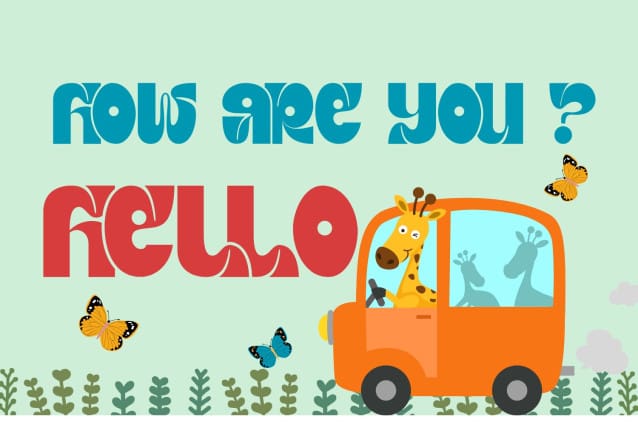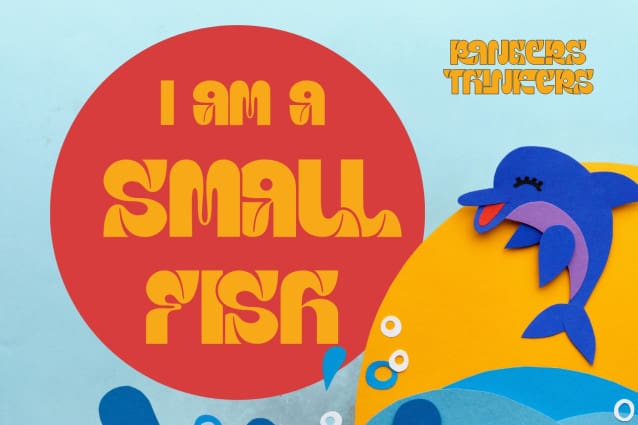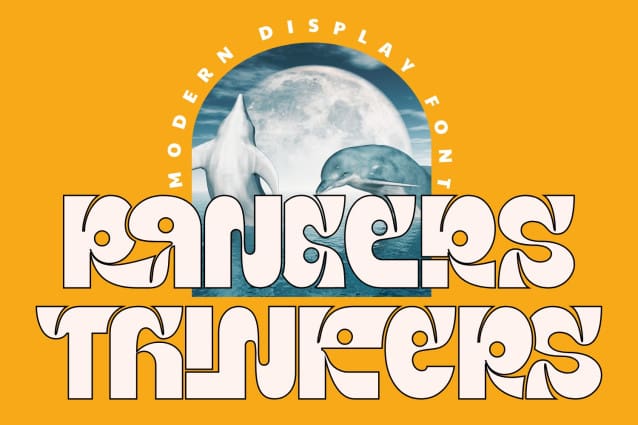
Rangers Thinkers Font
Rangers Thinkers Font is a playful font, it’s a funny font that has smooth curves and a visual style a can embodies charm and elegance in every lettering, making your work look stunning and attractive. Its unique design exudes energy and playfulness, making it perfect for projects that require a fresh and vibrant look.
Rangers Thinkers was built with OpenType features and includes 100 ligatures, alternate, numbers, punctuation, and it also supports other languages.
AC AD AL AN AR AS AT AU AV BE CA CE CH CO CT DE DI EA EC ED EE EL EM EN EP ER ES ET FE FO FR GE HA HE HI HO IE IC IL IN IO IR IS IT JU KE LA LE LI LL LO LY MA ME MI NC ND NE NG NO NT NS OC OF OM ON OO OP OR OT OU OW PA PR RA RD RE RI RO RS RT SE SH SI SO SS ST TA TE TH TI TO TR TT UM UN UR VE WI WO